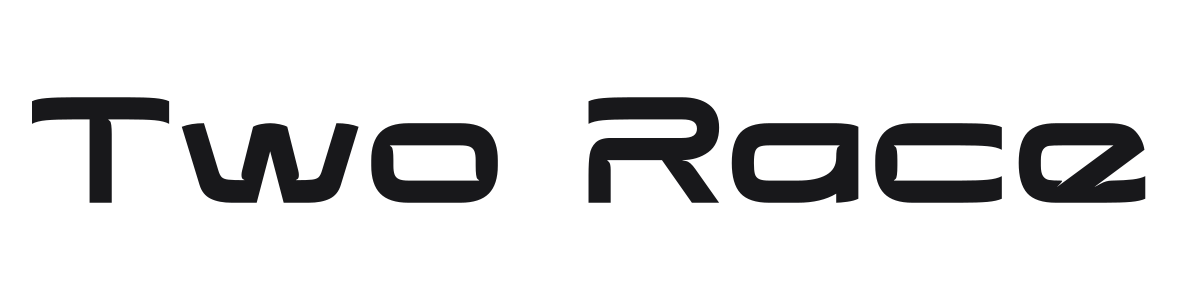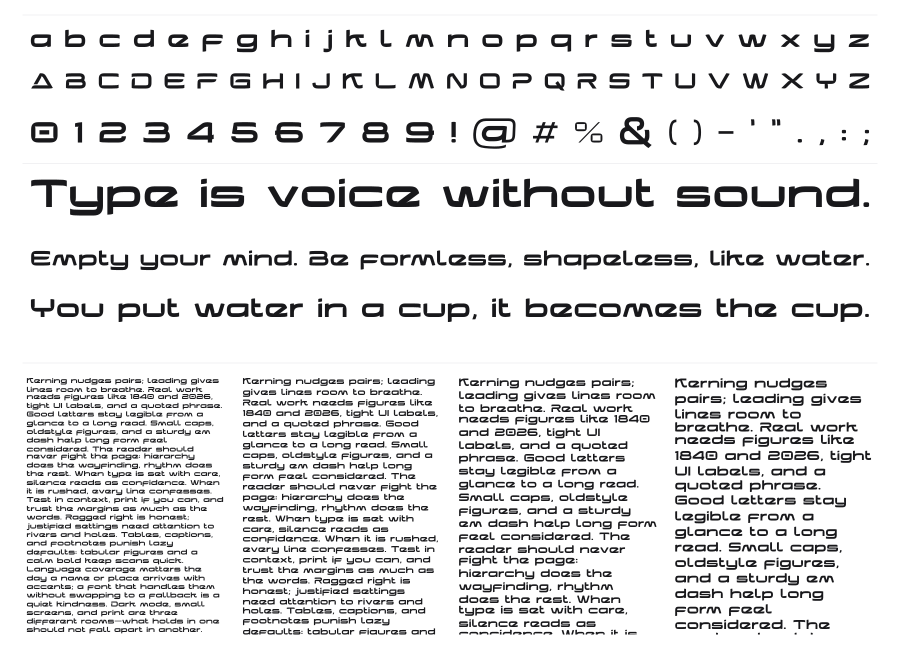
Two Race
Two Race is a bold rounded sans-serif with wide proportions and smooth, softened terminals that give it an aerodynamic, forward-moving quality. The near-monoweight strokes and tight spacing keep it feeling cohesive and modern without veering into generic. It sits naturally in racing, automotive, and sports branding contexts where momentum matters.